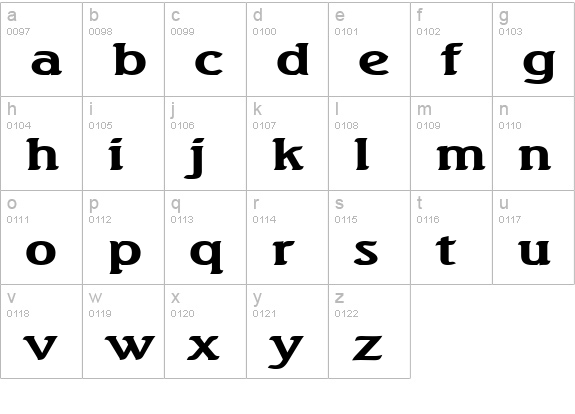
Beach Extended Bold Font Details
Beach Extended Bold is a strong, high-contrast, extended-width variant in the Beach typeface family \xE2\x80\x94 well suited to headlines, attention-grabbing titles, and strong calls-to-action.
Introducing Beach Extended Bold font, a stunning display typeface designed to captivate and command attention. With its bold and striking appearance, Beach Extended Bold is perfect for making a statement in headlines, logos, posters, and more. The sleek and modern design of this font exudes confidence and style, making it a versatile choice for a wide range of design projects. And the best part? Beach Extended Bold font is available for free download at FontsMarket.com! Take advantage of this fantastic offer and add this eye-catching font to your collection today. Embrace the bold and dynamic energy of Beach Extended Bold and elevate your designs to the next level.